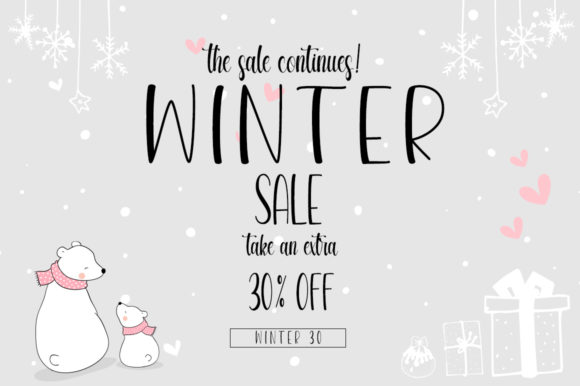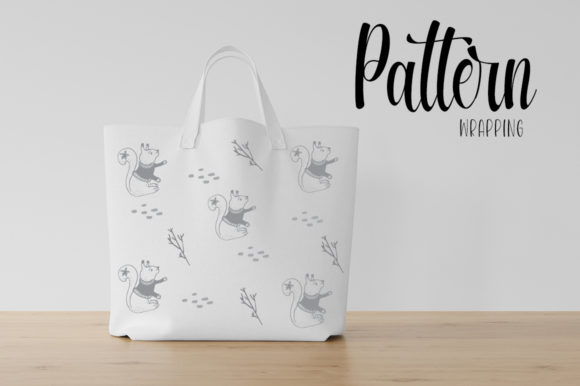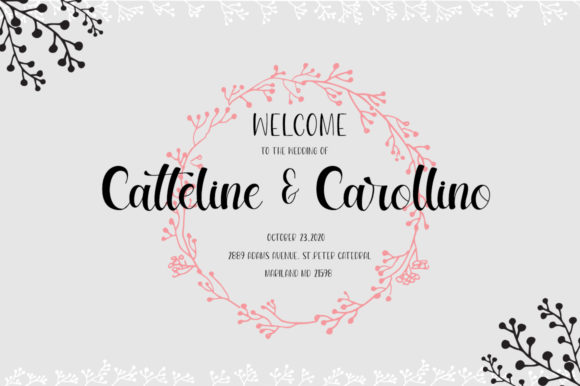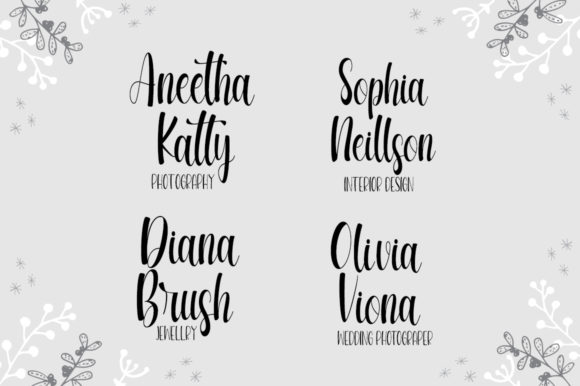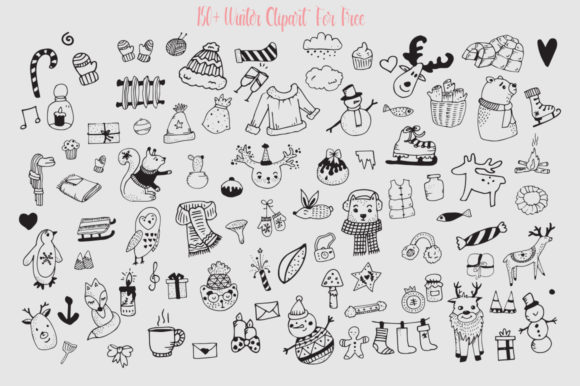
Beautiful Winter Day Font
About Beautiful Winter Day Font
Beautiful Winter Day is a modern calligraphy font that will allow you to create lovely hand-made typography in an instant. Fall in love with its incredibly versatile style and use it to create gorgeous wedding invitations, beautiful stationary art, eye-catching social media posts, and much more!